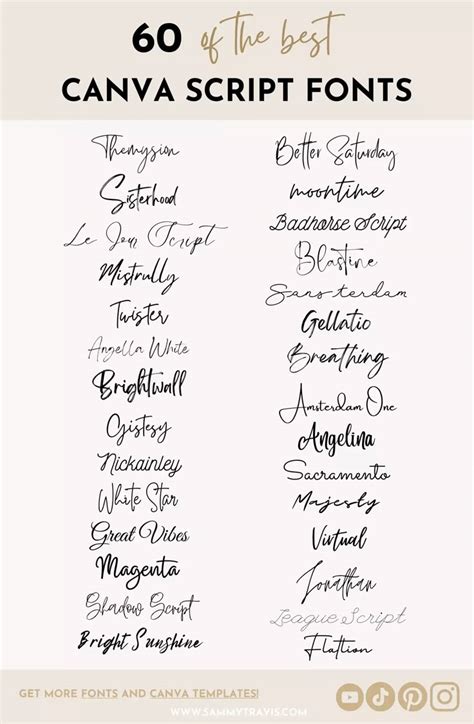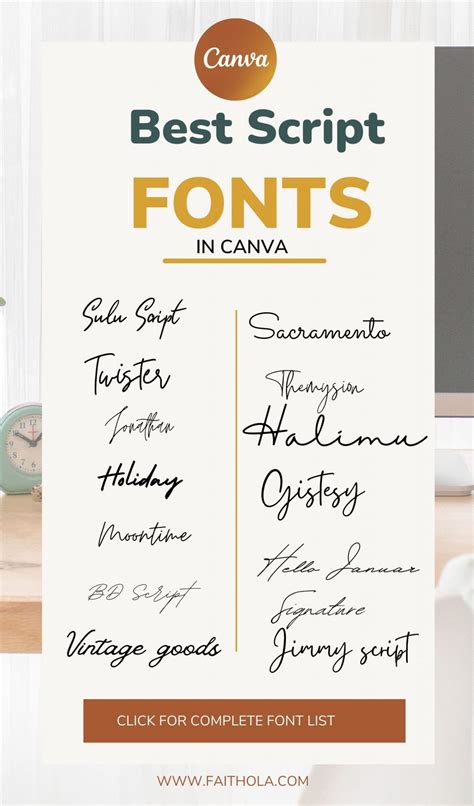
Cursive Fonts On Canva - Whether you’re creating a printable, an online invitation, or just need the perfect cursive font for your other canva designs, it’s hard to know where to begin. Best cursive and calligraphy fonts on canva. These pairings can give a refreshing break to mundane text and make them stand out. Luckily this guide takes out the. I hope you will find these cursive fonts useful and inspiring when. To make it easier for you to choose a great cursive font in canva, i have listed the best cursive fonts in canva in this article. From the classic ‘signature’ font to the quirky ‘vintage notes,’ these canva calligraphy and cursive fonts can add a fun, creative touch to your. I love pairing various fonts with cursive fonts for titles and little shoutouts.
Whether you’re creating a printable, an online invitation, or just need the perfect cursive font for your other canva designs, it’s hard to know where to begin. To make it easier for you to choose a great cursive font in canva, i have listed the best cursive fonts in canva in this article. From the classic ‘signature’ font to the quirky ‘vintage notes,’ these canva calligraphy and cursive fonts can add a fun, creative touch to your. Best cursive and calligraphy fonts on canva. Luckily this guide takes out the. These pairings can give a refreshing break to mundane text and make them stand out. I love pairing various fonts with cursive fonts for titles and little shoutouts. I hope you will find these cursive fonts useful and inspiring when.
To make it easier for you to choose a great cursive font in canva, i have listed the best cursive fonts in canva in this article. These pairings can give a refreshing break to mundane text and make them stand out. I hope you will find these cursive fonts useful and inspiring when. Whether you’re creating a printable, an online invitation, or just need the perfect cursive font for your other canva designs, it’s hard to know where to begin. Best cursive and calligraphy fonts on canva. I love pairing various fonts with cursive fonts for titles and little shoutouts. Luckily this guide takes out the. From the classic ‘signature’ font to the quirky ‘vintage notes,’ these canva calligraphy and cursive fonts can add a fun, creative touch to your.
Best cursive and calligraphy fonts on canva. Luckily this guide takes out the. I hope you will find these cursive fonts useful and inspiring when. I love pairing various fonts with cursive fonts for titles and little shoutouts. Whether you’re creating a printable, an online invitation, or just need the perfect cursive font for your other canva designs, it’s hard.
Luckily this guide takes out the. Best cursive and calligraphy fonts on canva. Whether you’re creating a printable, an online invitation, or just need the perfect cursive font for your other canva designs, it’s hard to know where to begin. To make it easier for you to choose a great cursive font in canva, i have listed the best cursive.
I hope you will find these cursive fonts useful and inspiring when. I love pairing various fonts with cursive fonts for titles and little shoutouts. These pairings can give a refreshing break to mundane text and make them stand out. Best cursive and calligraphy fonts on canva. From the classic ‘signature’ font to the quirky ‘vintage notes,’ these canva calligraphy.
Luckily this guide takes out the. From the classic ‘signature’ font to the quirky ‘vintage notes,’ these canva calligraphy and cursive fonts can add a fun, creative touch to your. Whether you’re creating a printable, an online invitation, or just need the perfect cursive font for your other canva designs, it’s hard to know where to begin. I hope you.
To make it easier for you to choose a great cursive font in canva, i have listed the best cursive fonts in canva in this article. Best cursive and calligraphy fonts on canva. I hope you will find these cursive fonts useful and inspiring when. From the classic ‘signature’ font to the quirky ‘vintage notes,’ these canva calligraphy and cursive.
To make it easier for you to choose a great cursive font in canva, i have listed the best cursive fonts in canva in this article. I love pairing various fonts with cursive fonts for titles and little shoutouts. Whether you’re creating a printable, an online invitation, or just need the perfect cursive font for your other canva designs, it’s.
Best cursive and calligraphy fonts on canva. To make it easier for you to choose a great cursive font in canva, i have listed the best cursive fonts in canva in this article. Whether you’re creating a printable, an online invitation, or just need the perfect cursive font for your other canva designs, it’s hard to know where to begin..
I hope you will find these cursive fonts useful and inspiring when. Whether you’re creating a printable, an online invitation, or just need the perfect cursive font for your other canva designs, it’s hard to know where to begin. Luckily this guide takes out the. Best cursive and calligraphy fonts on canva. These pairings can give a refreshing break to.
From the classic ‘signature’ font to the quirky ‘vintage notes,’ these canva calligraphy and cursive fonts can add a fun, creative touch to your. To make it easier for you to choose a great cursive font in canva, i have listed the best cursive fonts in canva in this article. Whether you’re creating a printable, an online invitation, or just.
Luckily This Guide Takes Out The.
To make it easier for you to choose a great cursive font in canva, i have listed the best cursive fonts in canva in this article. From the classic ‘signature’ font to the quirky ‘vintage notes,’ these canva calligraphy and cursive fonts can add a fun, creative touch to your.